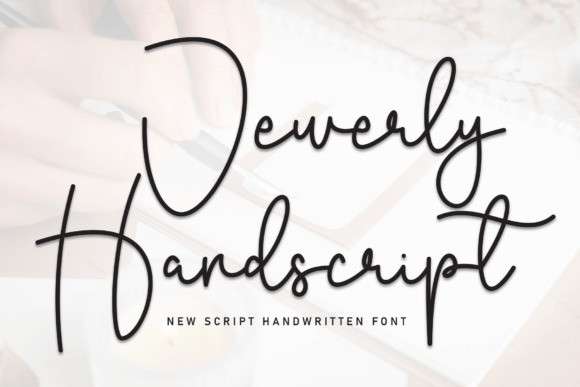
Jewerly Handscript Font
Jewerly Handscript Font is a beautiful handwritten font that looks like elegant cursive writing. It’s perfect for adding a personal and stylish touch to invitations, cards, and other creative projects. The letters flow smoothly, giving a warm and friendly feel.